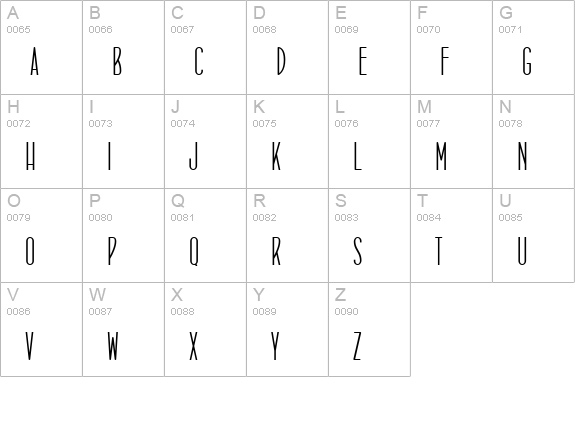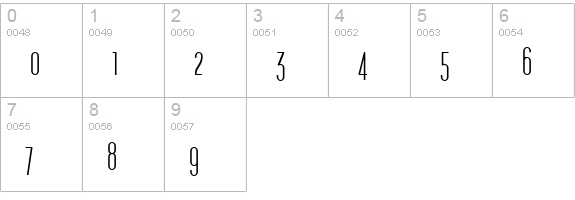
ConcursoItalian BTN Cn Font Details
ConcursoItalian BTN Cn font is a stylish and elegant typeface that exudes sophistication and class. With its sleek design and modern appearance, this font is perfect for adding a touch of sophistication to any project. The slender and elongated letterforms of ConcursoItalian BTN Cn font make it ideal for use in headings, titles, and other display text. The best part about ConcursoItalian BTN Cn font is that it is completely free to download. You can easily access this stunning font at FontsMarket.com and enhance your design projects with its unique aesthetic. Don't miss out on the opportunity to elevate your designs with this exquisite typeface that is both versatile and visually appealing. Download ConcursoItalian BTN Cn font today and take your projects to the next level!